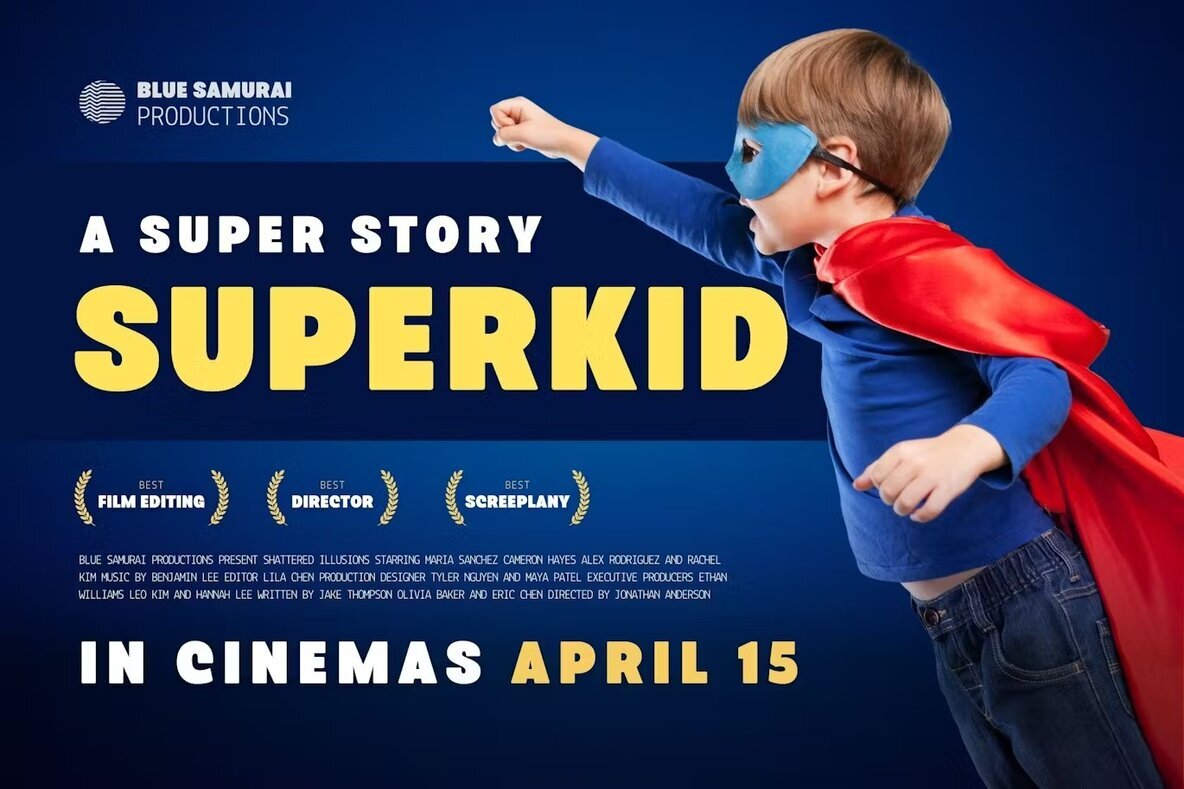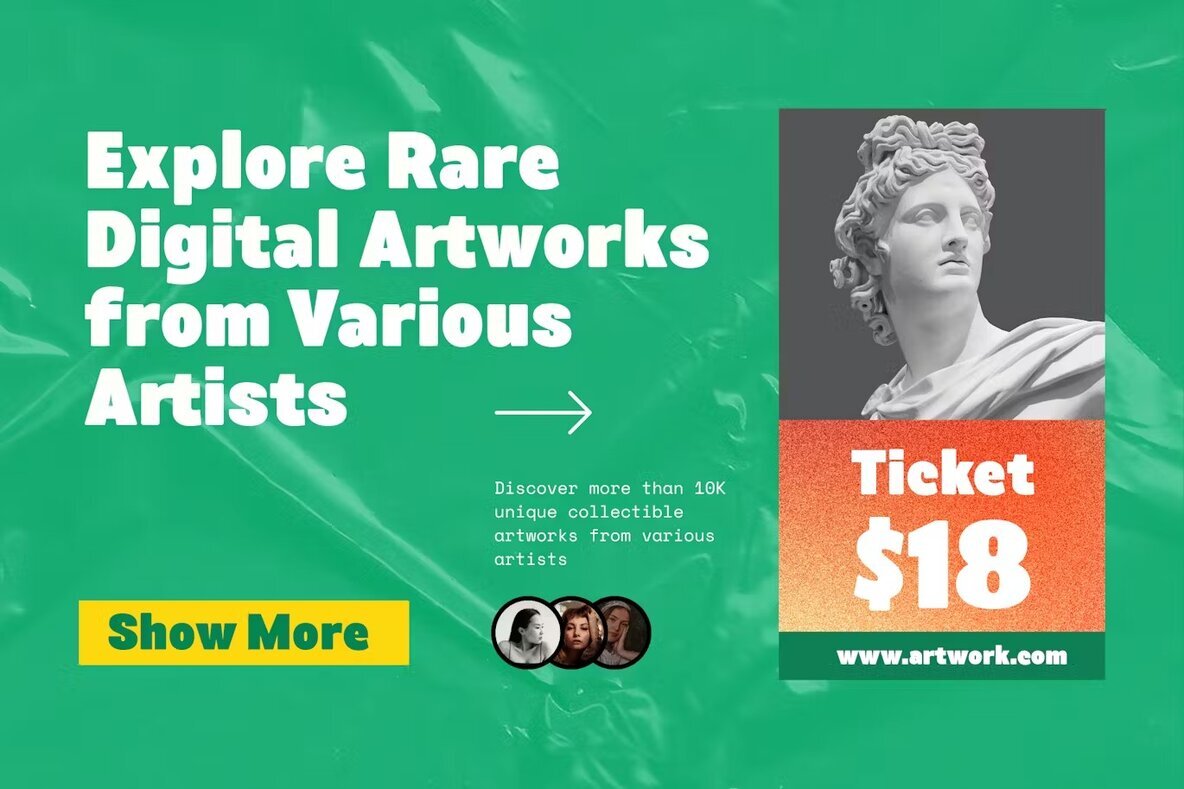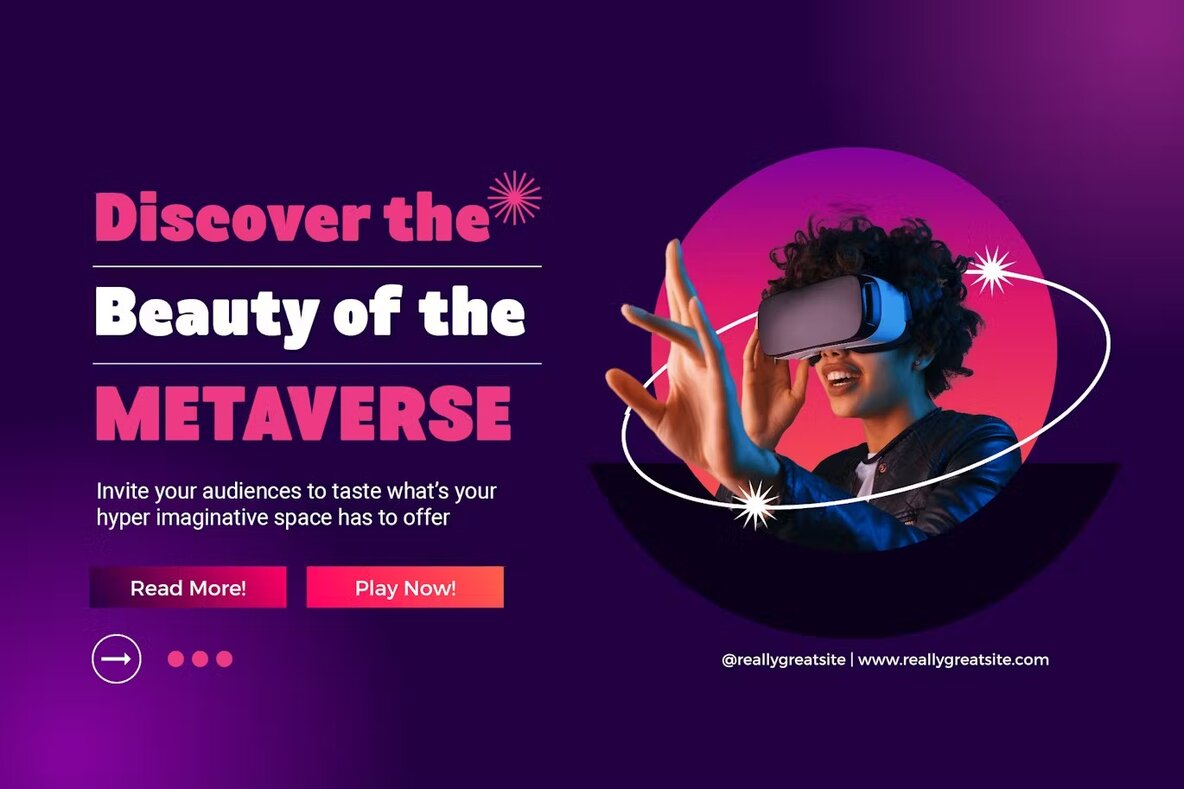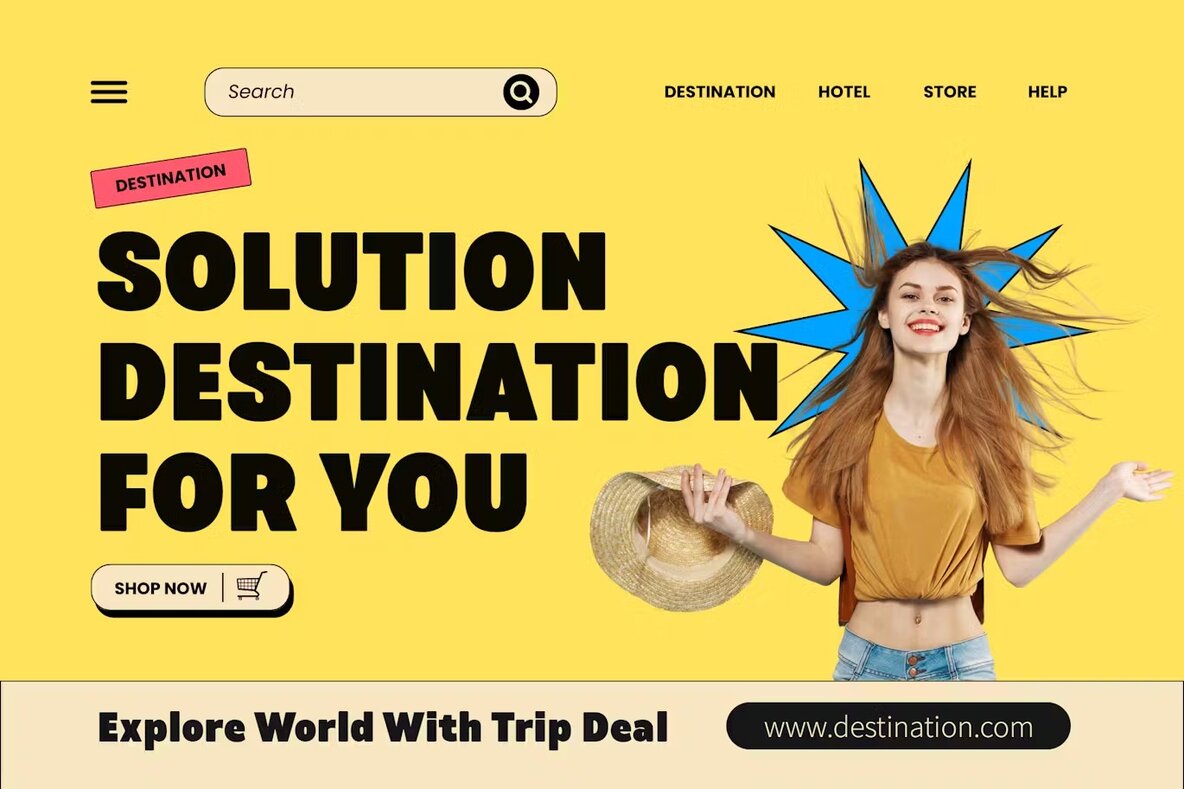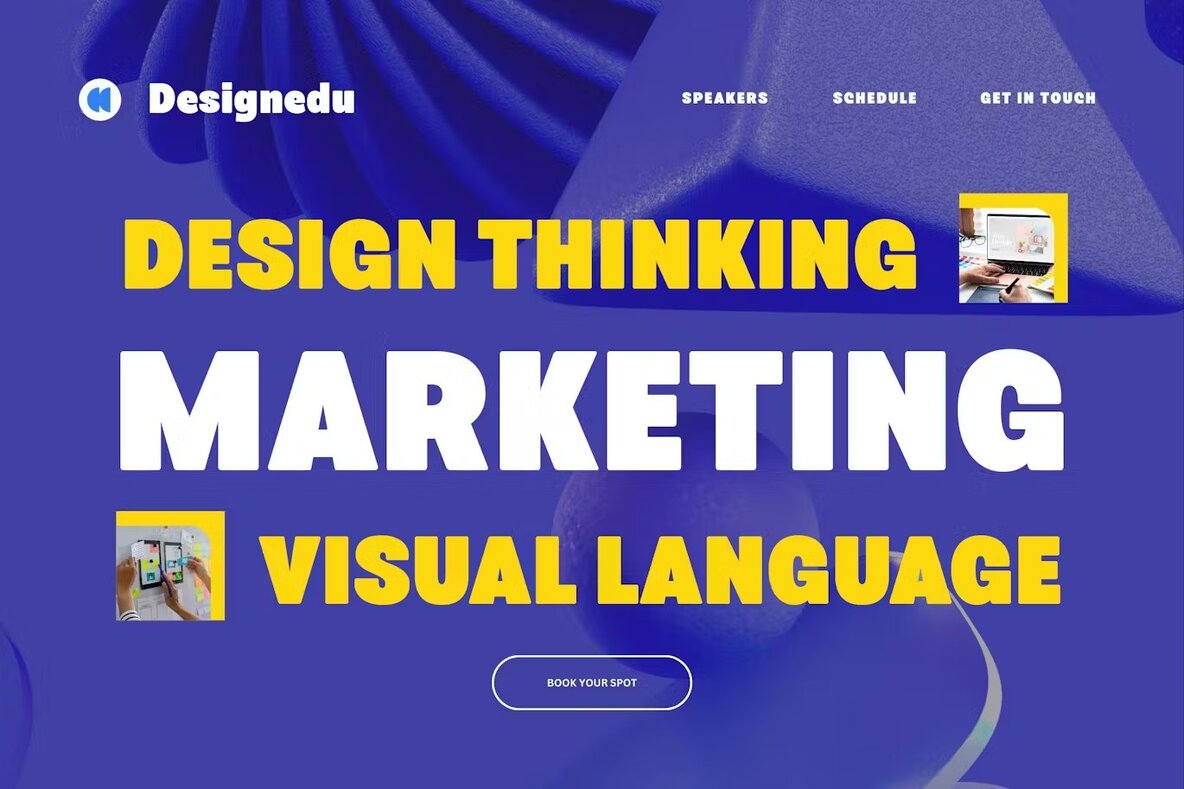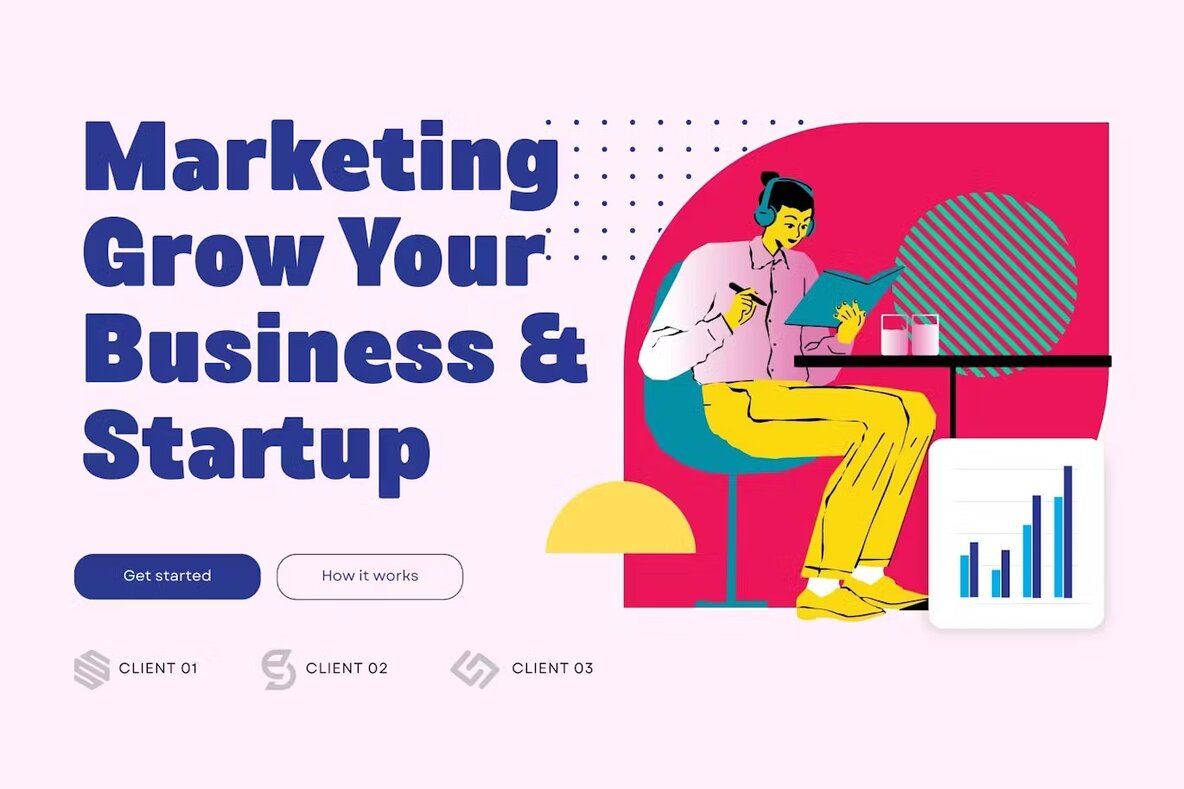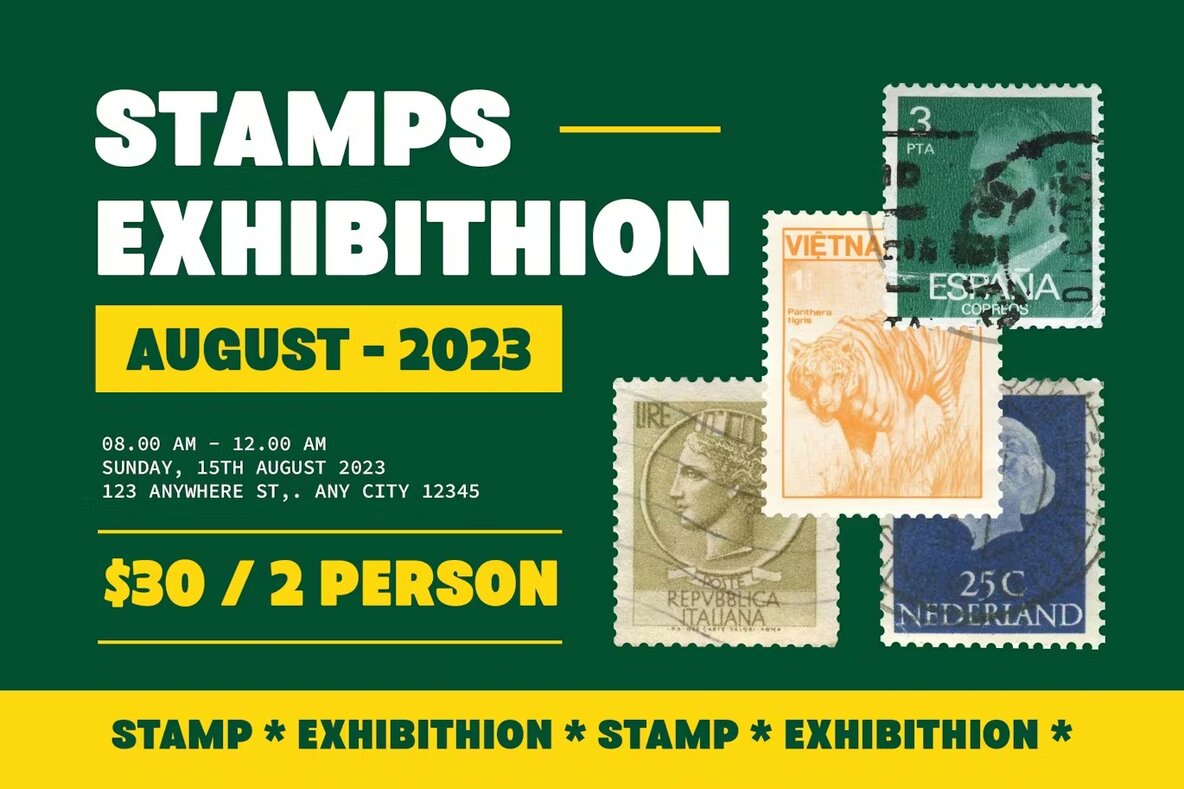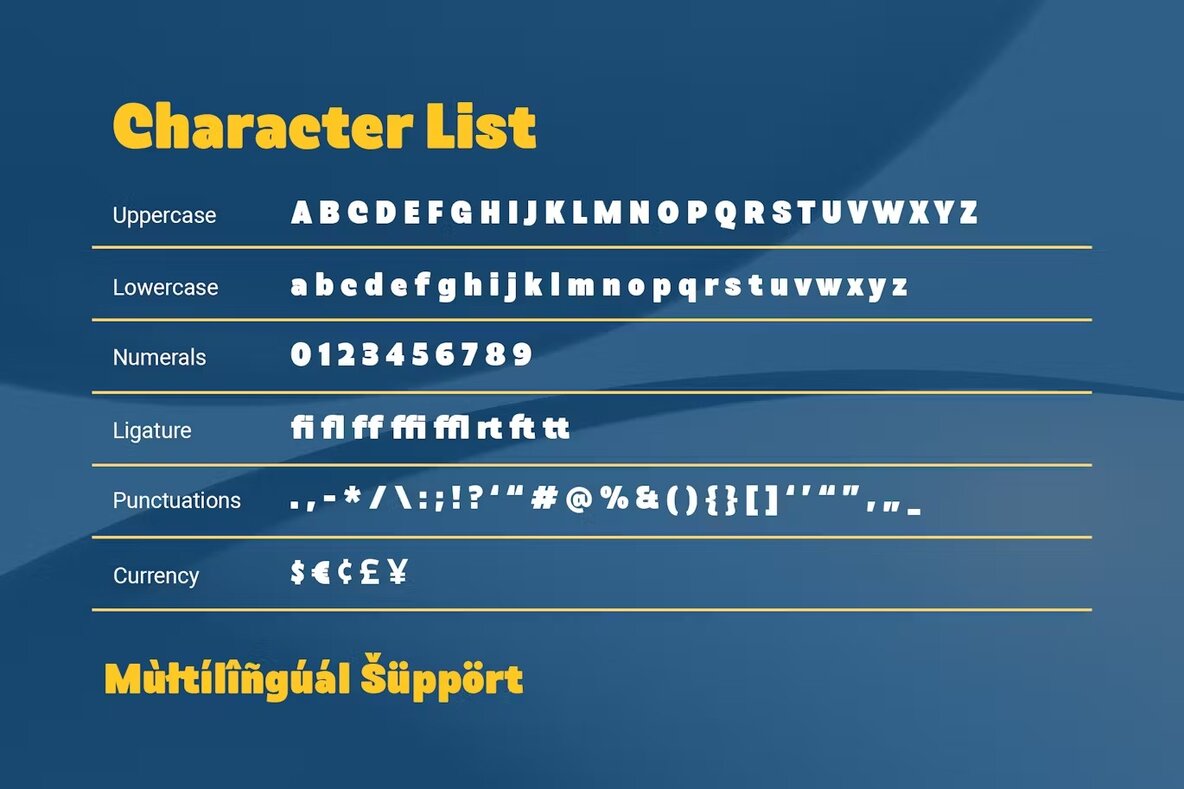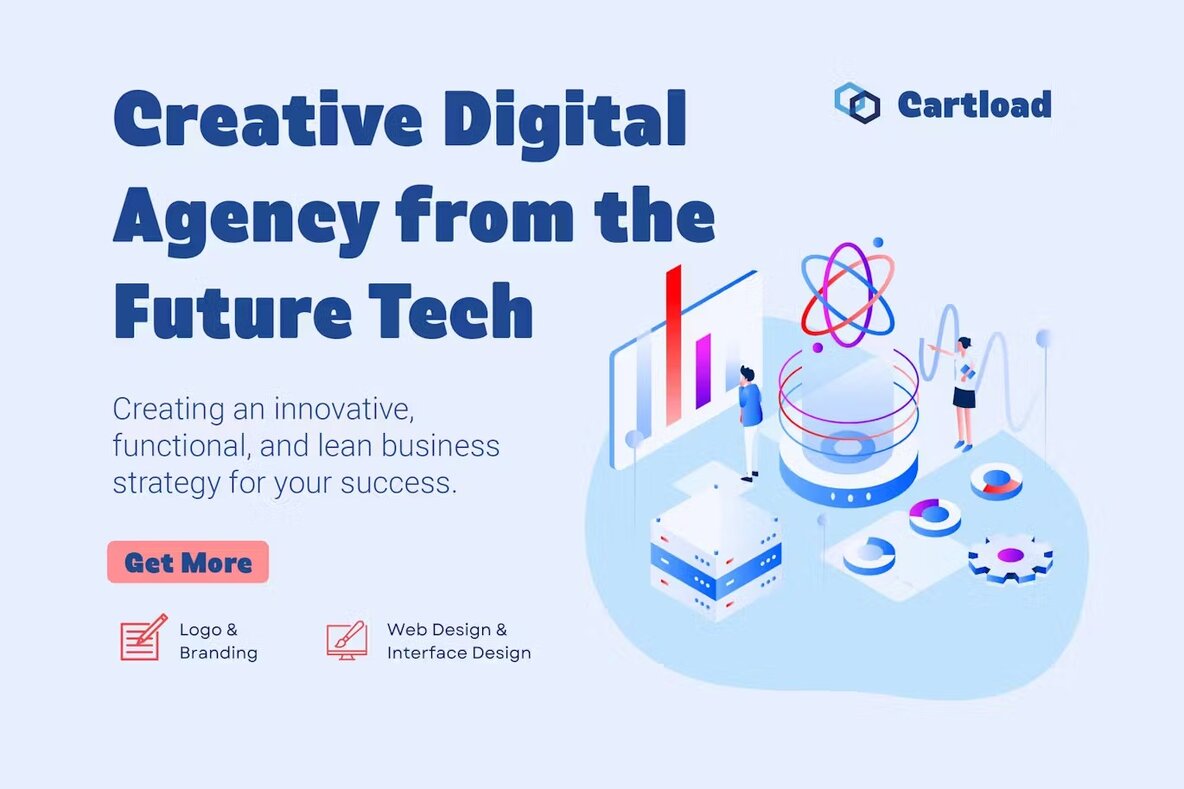
Cartload Font
Cartload Regular
Cartload Font is a stylish and modern rounded bold sans-serif typeface. With its bold appearance, Cartload Font is ideal for creating eye-catching headlines and graphic designs. This typeface is suitable for various design projects such as branding, packaging, advertising, and more. The font has a versatile style that can be used in both web and print applications. Its modern design and expanded style make it a standout choice for designers looking to add boldness to their designs.